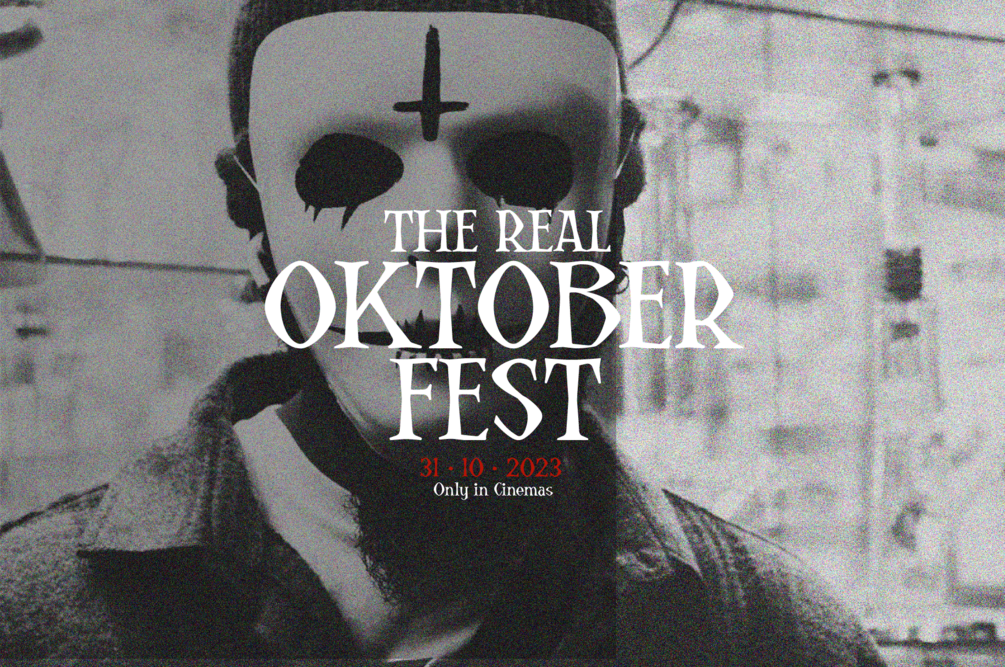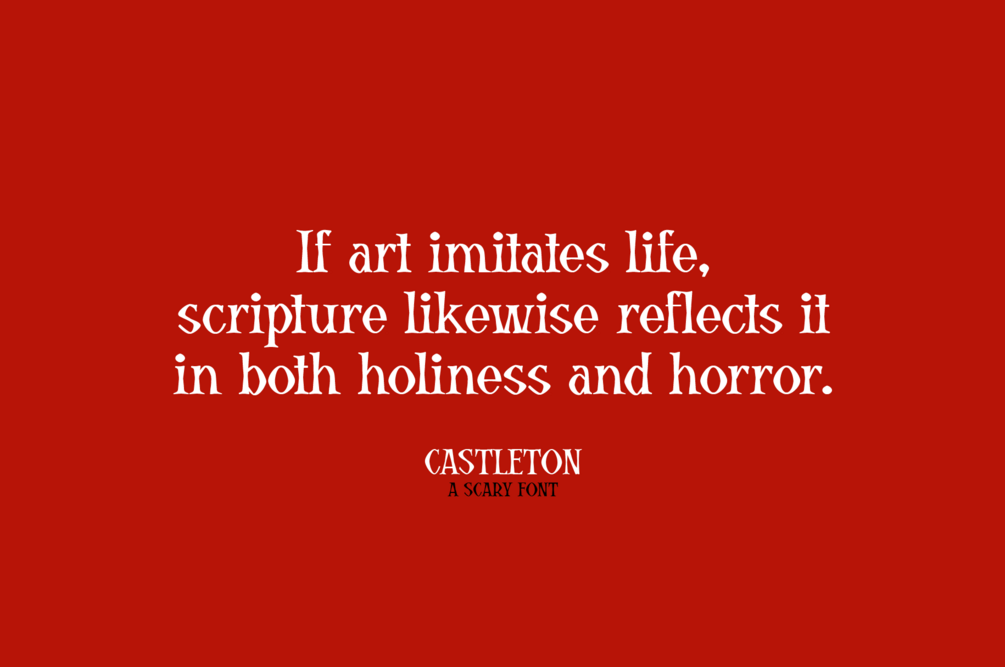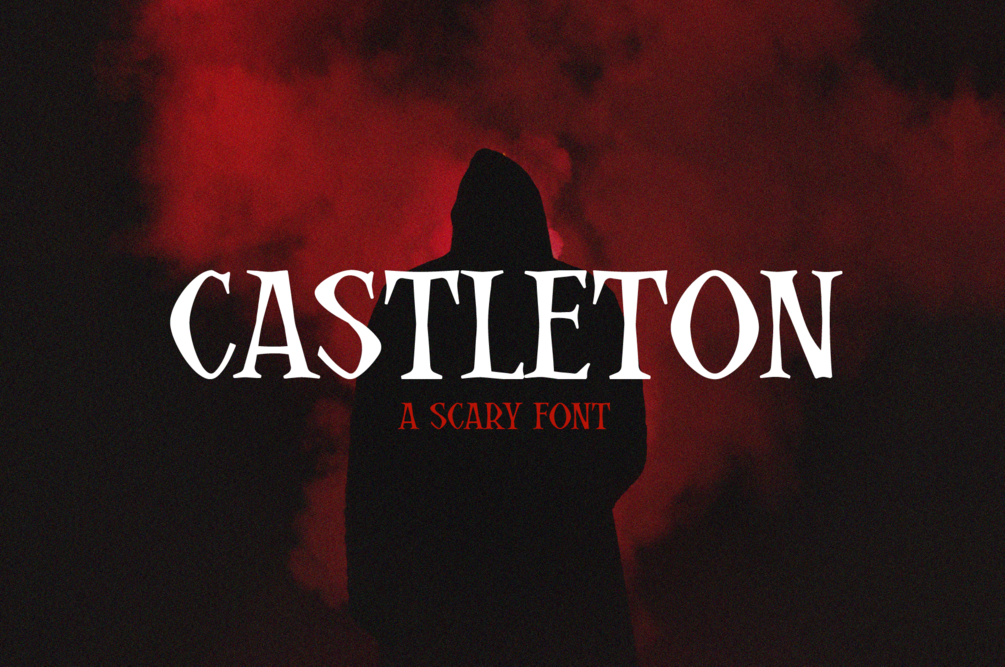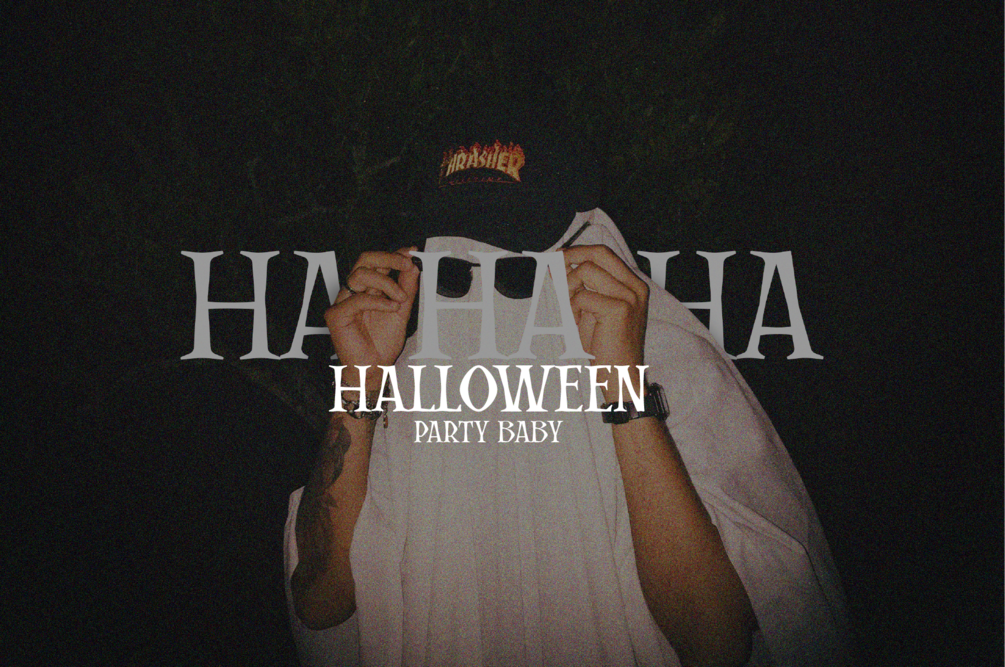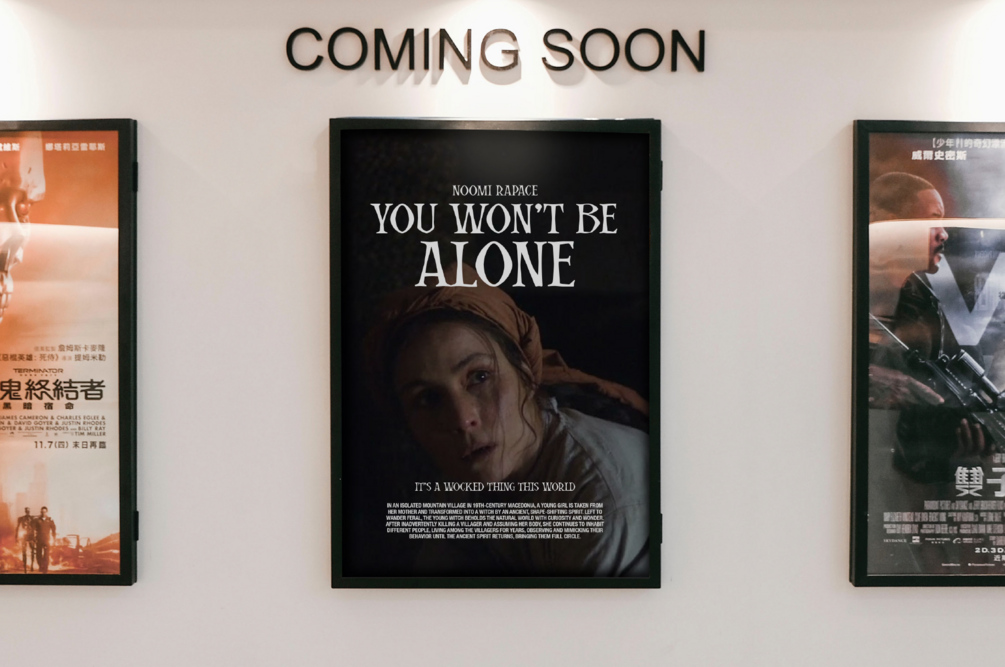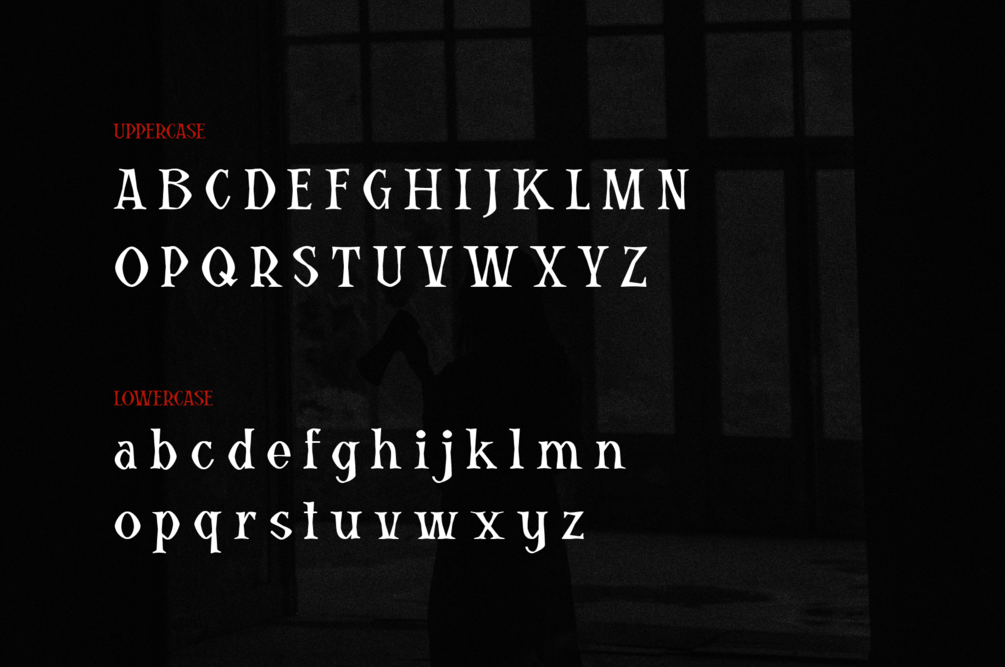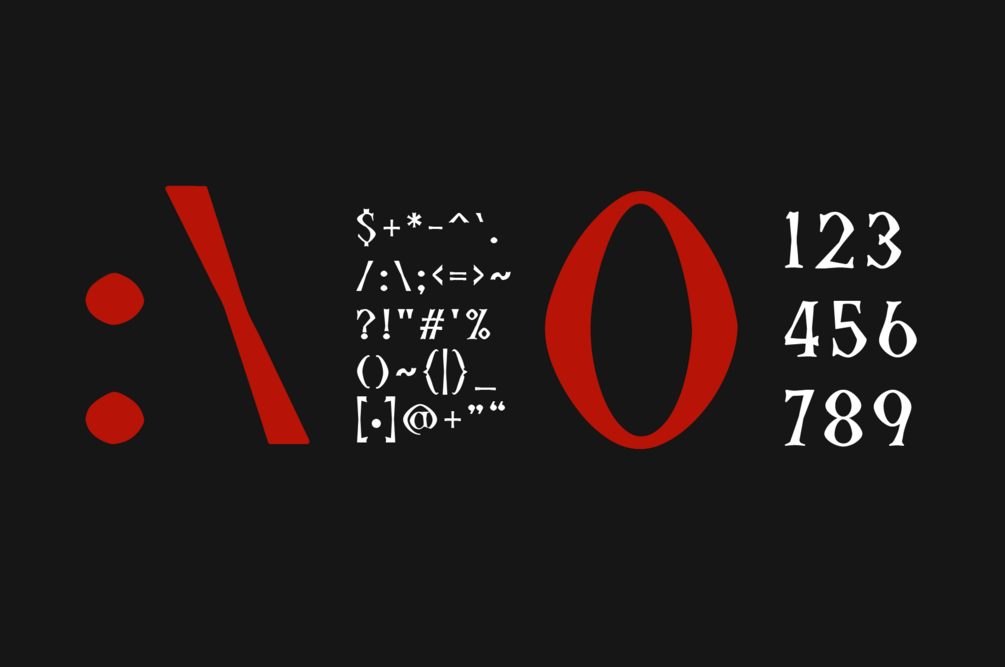
Castleton - Scary Display
Castleton is a Halloween inspired typeface. This unique font is perfect for horror designs as well as fantasy based projects. You can use it for just about anything like posters, branding, apparel, stationary, stickers, packaging, movies, album covers, and more. Create eye-catching designs today with Castleton!